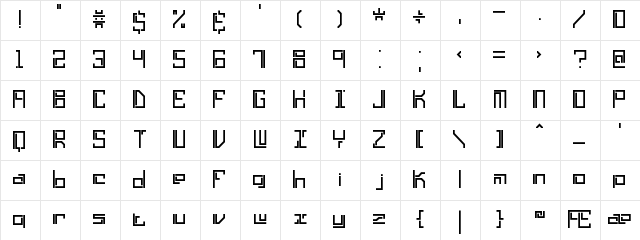
Lyneous Linear BRK Regular
Design Context for Lyneous Linear BRK
Lyneous Linear BRK is a composed and adaptable typeface that performs quietly and consistently across a wide range of design contexts.
Pro Tip: Use Lyneous Linear BRK in both headline and body roles to test its range before committing to a single application.